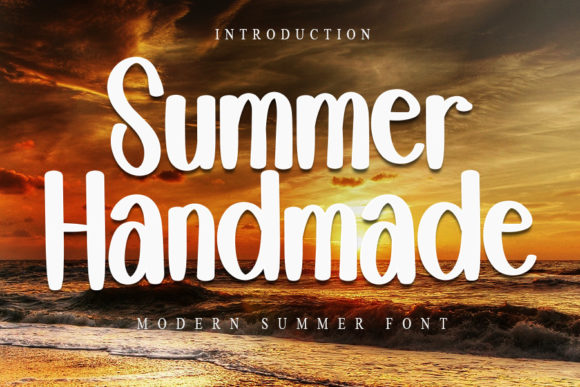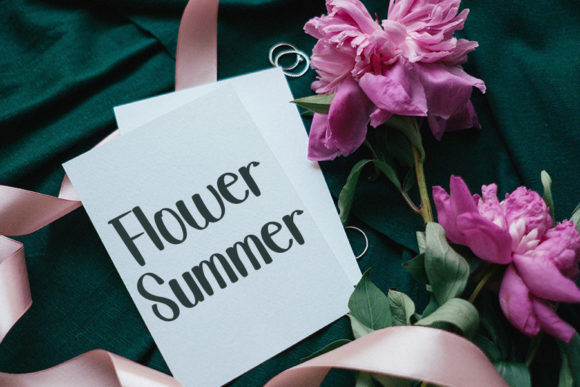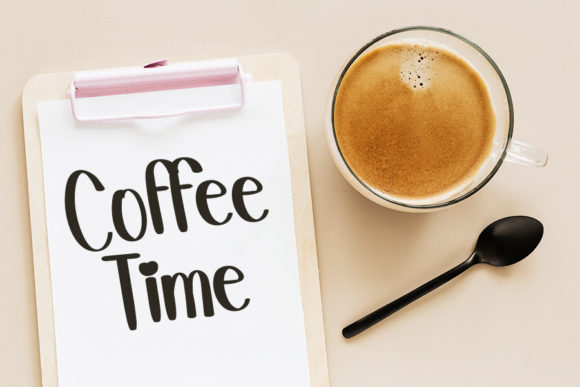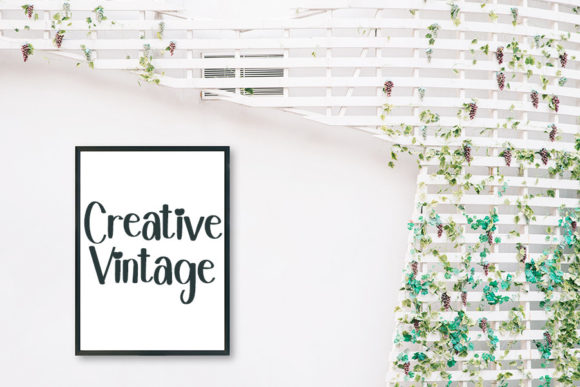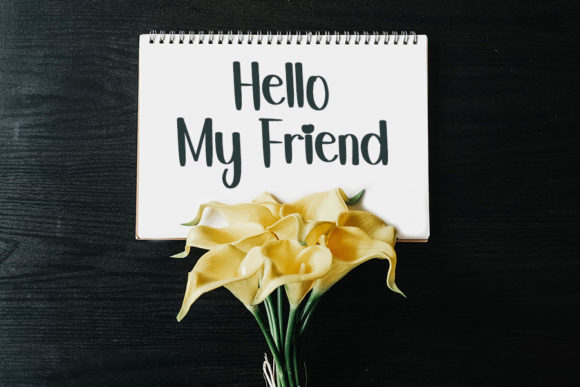
Summer Handmade Font
About Summer Handmade Font
Summer Handmade is a simple and fun script font. Fall in love with its completely different and timeless style and use it to create spectacular designs!